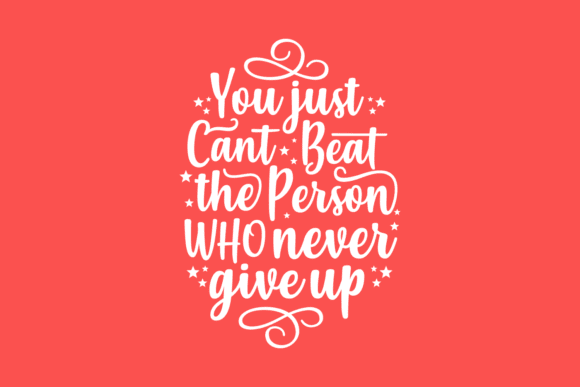
Misses Font
Misses is a beautiful handwritten script typeface that has been meticulously designed to give your work a delightfully quirky feel. This typeface features a ton of different characters, and the caps can be mixed and matched for an unrivaled aesthetic. Misses is a high-quality Script Handwritten typeface created by 7NTypes and made freely accessible for personal use.
Filled with rustic strokes and lines were used to create this one-of-a-kind typeface. As a result, the font is suitable for a wide range of text-based projects. It can be used to make logos, posters, cards, branding, labels, product packaging, etc. The font looks wonderful against dark backgrounds. It will look wonderful with a black background and a bold white shape.